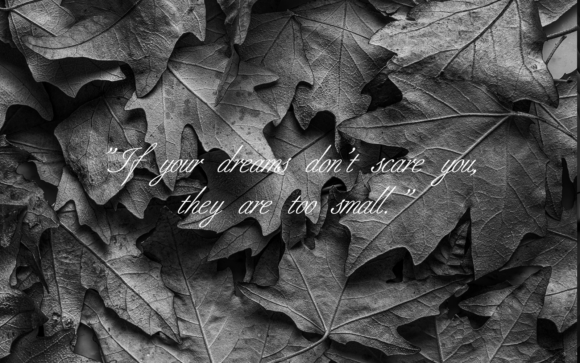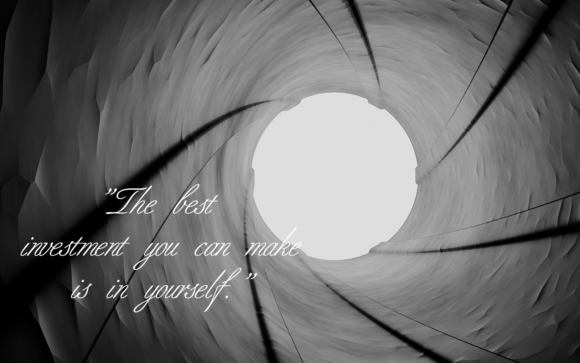
The Flexora Font: A Whimsical Touch for Your Creative Projects
I still remember the time I was working on a romantic wedding invitation project, and my client asked for a font that would capture the essence of their love story. I scoured the internet, tried out countless fonts, but none seemed to fit the bill. That was until I stumbled upon the Flexora Font. Its delicate, handwriting-like strokes and playful elegance won me over, and I knew I had found the perfect fit. In this article, I’ll share my experience with the Flexora Font, its unique features, and how to make the most of it in your creative projects.
A Personal Review: What I Love About Flexora Font
Here’s what makes the Flexora Font stand out:
- ✨ Natural Handwriting Feel: The font’s thin, spontaneous strokes and graceful curves give it a genuine, handwritten feel that’s perfect for casual displays and authentic writing.
- ✅ Playful Elegance: Flexora’s creative flair adds a touch of whimsy, making it ideal for romantic content, invitations, and projects that require a delicate, yet artistic charm.
- 💕 Emotional Connection: The font’s effortless style speaks to the heart, blending creativity with sincerity, and evoking emotion and personal connection.
While the Flexora Font is a beautiful addition to any project, there are a few things to keep in mind:
- ⚠️ Legibility at Small Sizes: Like many script fonts, Flexora can be a bit tricky to read at very small sizes. It’s best used at larger sizes, such as headlines or titles.
- 🤔 Overuse of Swashes: While the font’s swashes and stylistic alternates are beautiful, overusing them can make the text look cluttered. Use them sparingly to add a touch of elegance.
The Story Behind Flexora Font
The Flexora Font was designed by a talented typographer who wanted to capture the essence of natural handwriting. Inspired by the flowing strokes and elegant curves of handwritten letters, the designer created a font that would evoke emotion and personal connection. With its creative flair and playful elegance, Flexora has become a popular choice among designers and crafters.
| What is the Flexora Font best used for? | The Flexora Font is ideal for romantic content, casual displays, and authentic, free-flowing writing. It’s perfect for wedding invitations, social media graphics, and creative projects that require a delicate, yet artistic charm. |
| Is the Flexora Font suitable for body text? | While the Flexora Font is beautiful, it’s not recommended for body text. Its elegant, cursive style is best used for headlines, titles, or short paragraphs. |